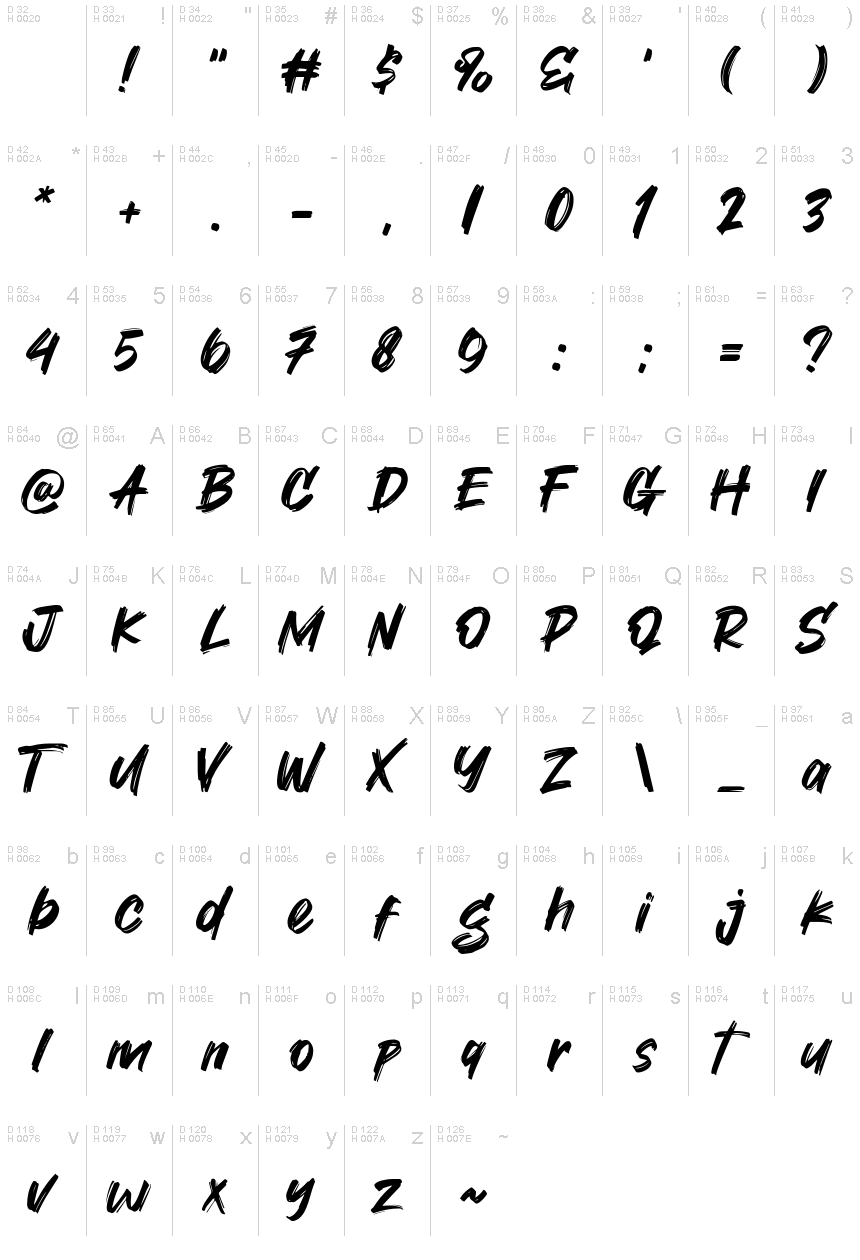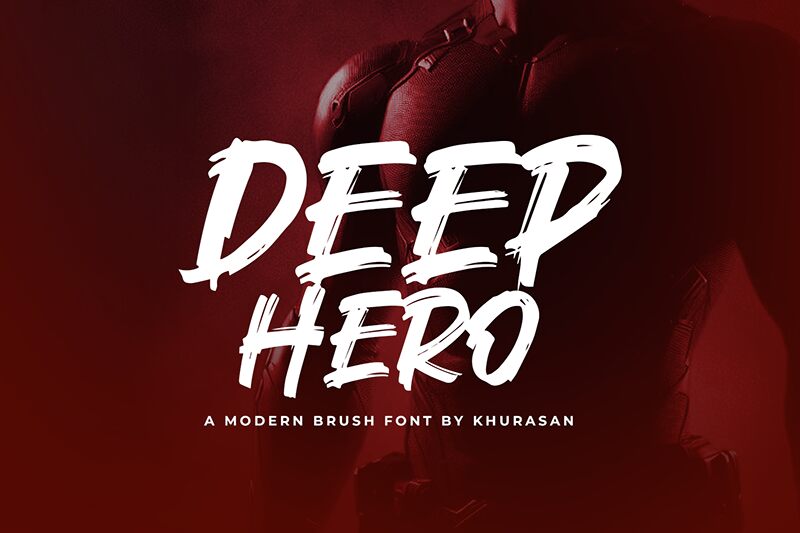
Deep Hero
Embrace the bold, expressive brushstrokes of Deep Hero, a captivating font created by the talented designer Khurasan. This dynamic typeface exudes a captivating blend of raw energy and refined elegance, drawing the eye with its striking, organic appearance. Each letter is imbued with a sense of movement and personality, perfectly capturing the essence of a heroic narrative.
Deep Hero's versatility shines through, making it a versatile choice for a variety of design applications. Its bold, attention-grabbing presence lends itself seamlessly to branding, headlines, and editorial layouts, while its unique character also allows for more nuanced usage in packaging, advertising, and even personal projects. Unleash the power of Deep Hero and let its bold, expressive form elevate your creative vision.